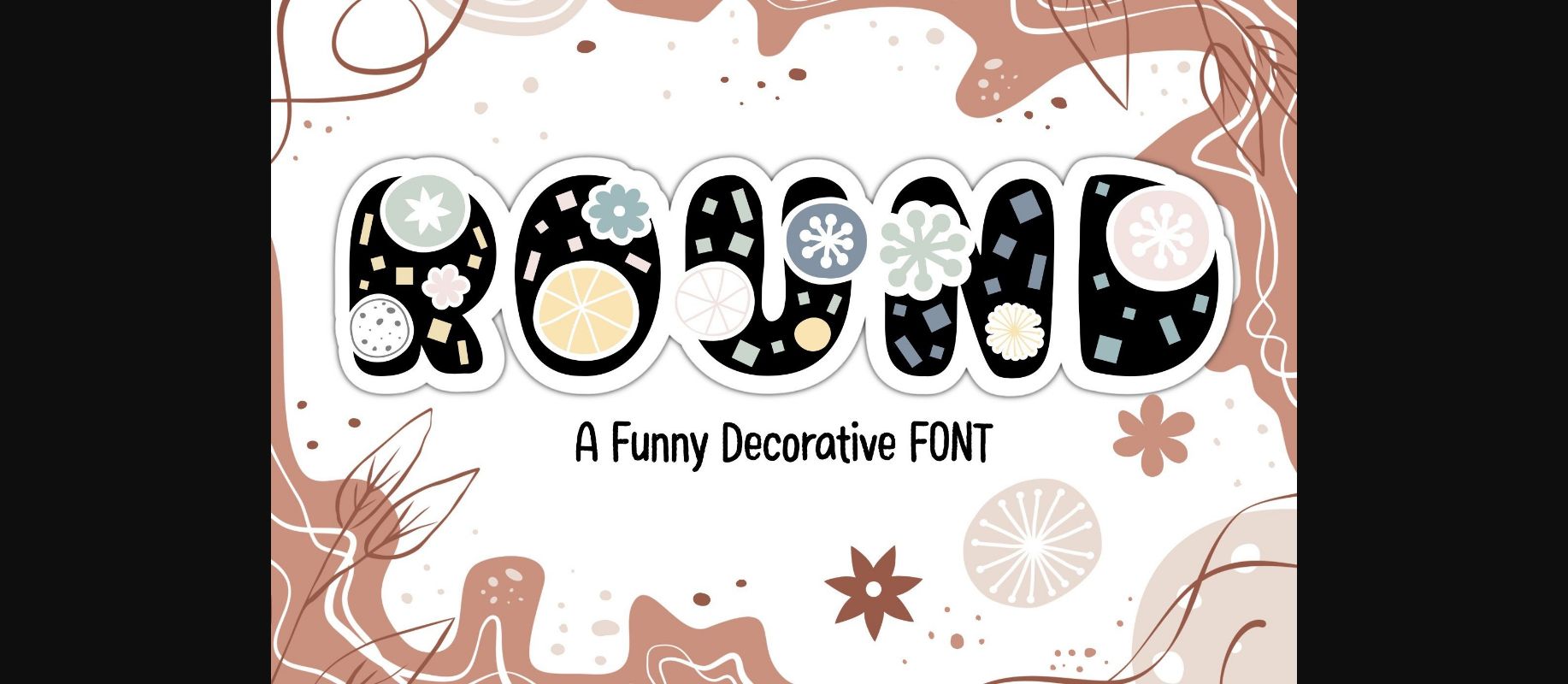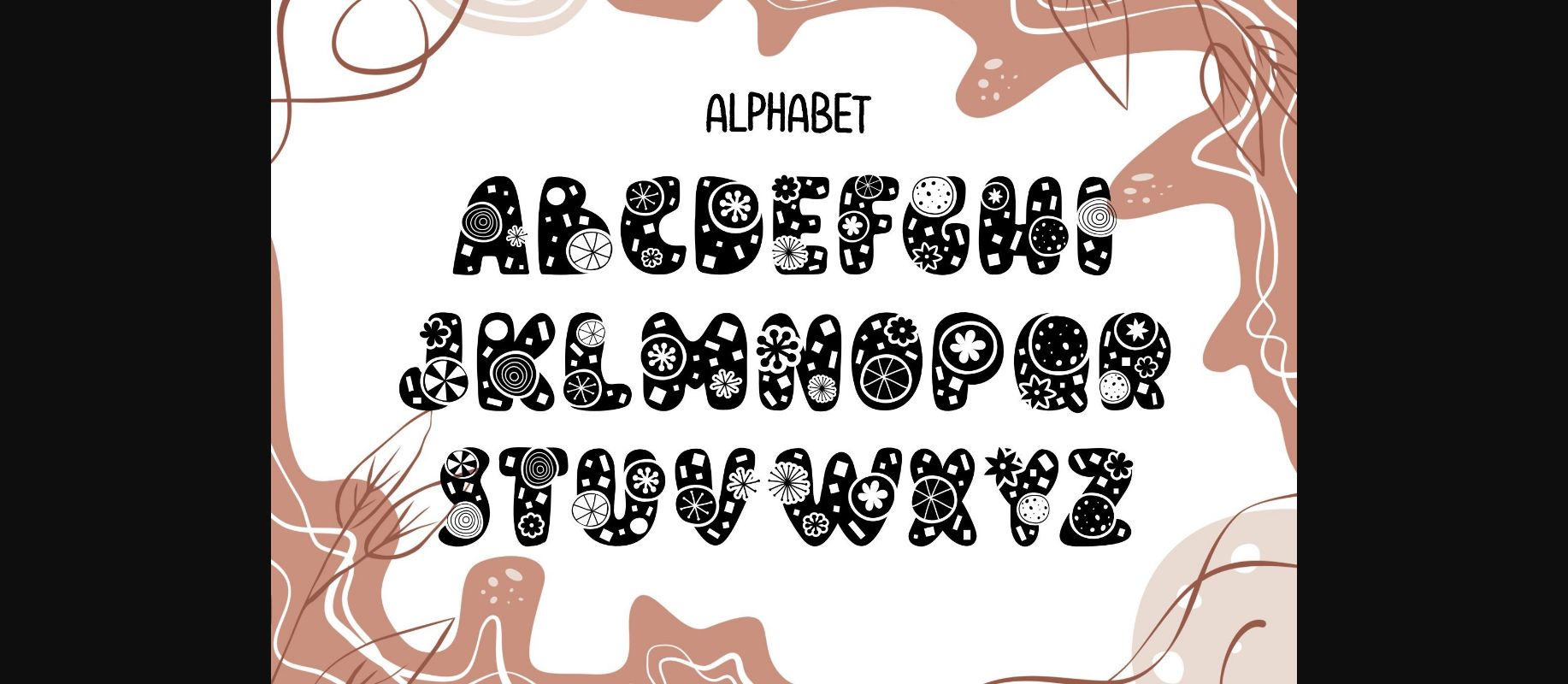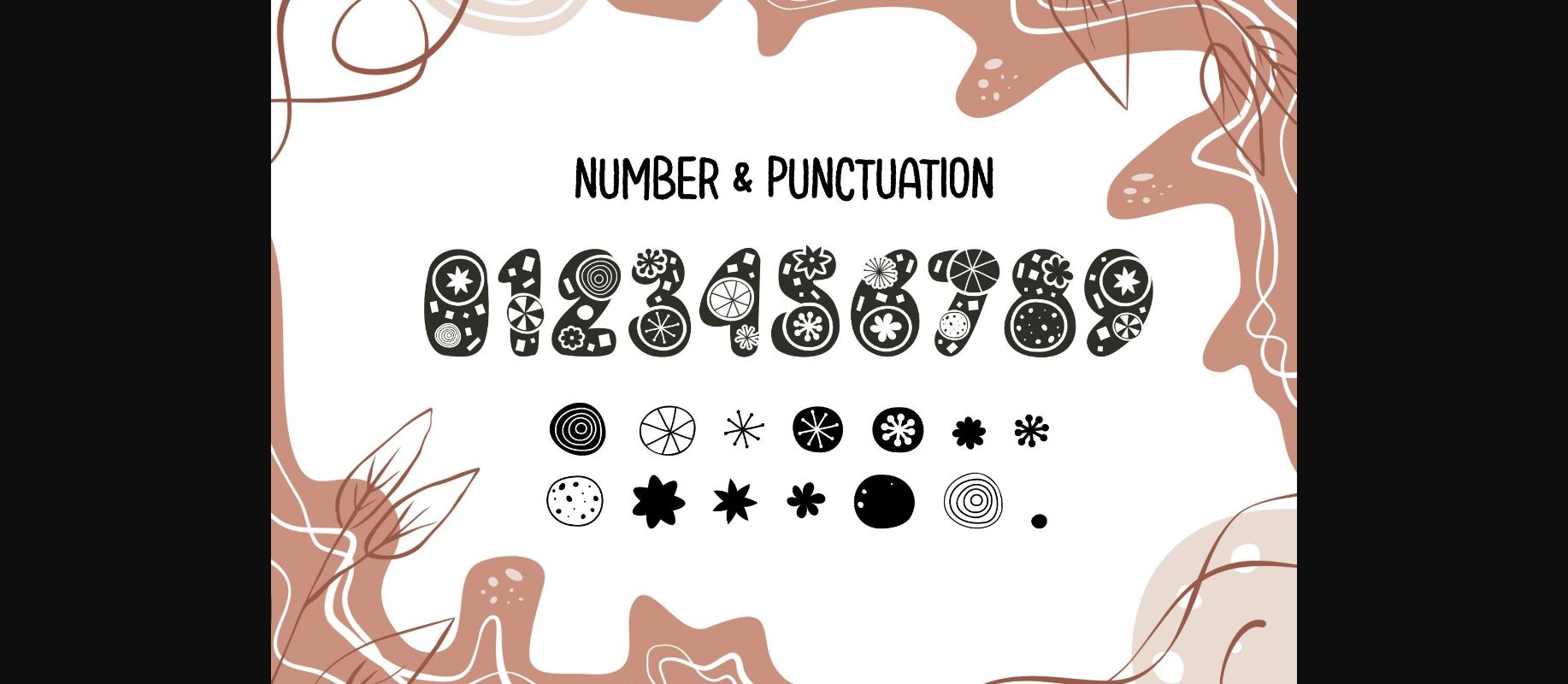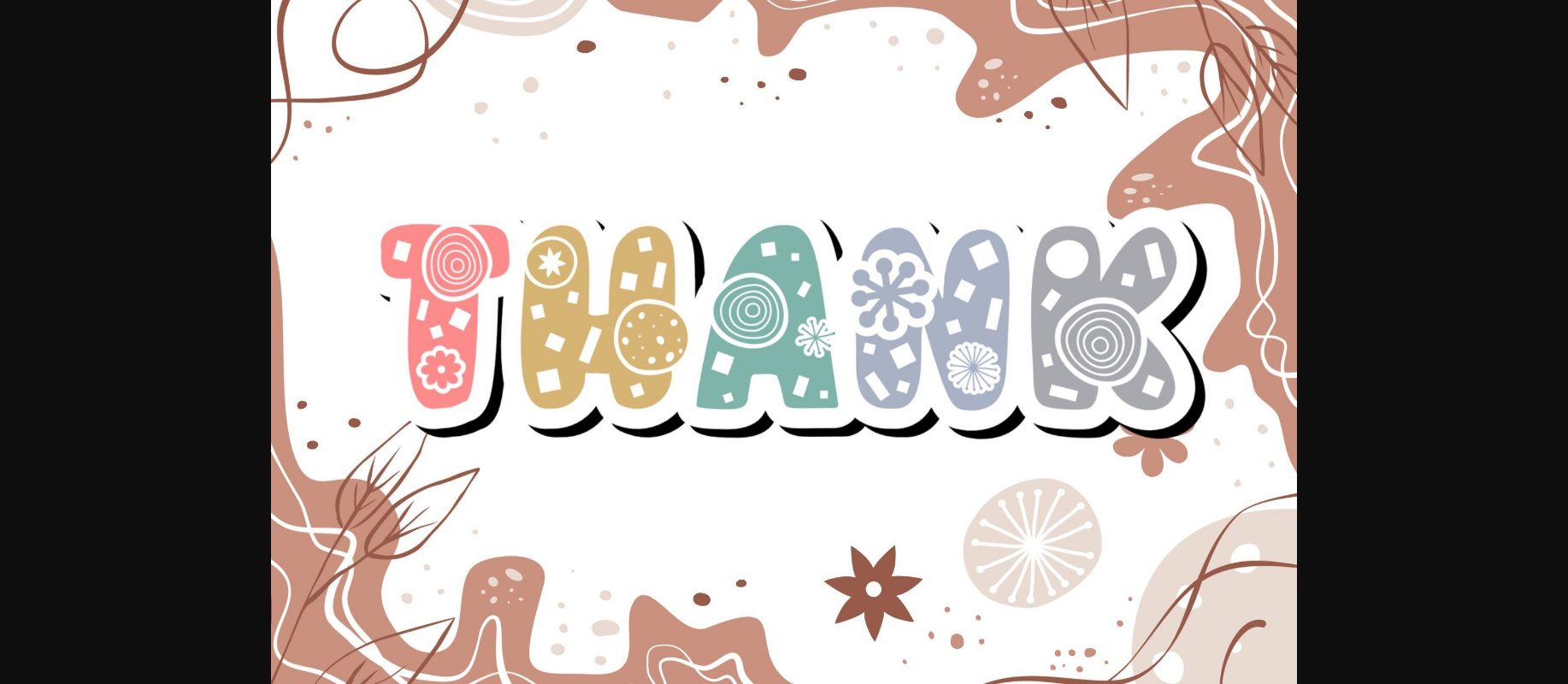
HomeDecorative FontsRound Font Decorative Fonts Round Font FacebookXPinterestWhatsApp 1 of 7 ... Round Font Poster 2... Round Font Poster 3... Round Font Poster 4... Round Font Poster 5... Round Font Poster 6... Round Font Poster 7... About Round Font Round is a fun decorative font that will fill your designs with cheerfulness! Use it on covers, posters, crafty DIY projects, and anything that needs to pop! DOWNLOAD NOW People also explored Aliquam Font Love Font Daddy Story Font Marthona Font Childlike Everyday Font Wintersnow Font La Fillea Font Linedoor Font Chesterfield Font 357 0 TagsRoundRound Font Previous articleScary FontNext articleMonster Halloween Font LEAVE A REPLY Cancel reply Comment: Please enter your comment! Name:* Please enter your name here Email:* You have entered an incorrect email address! Please enter your email address here Website: Save my name, email, and website in this browser for the next time I comment. Personal Use Free Einstaint Personal Use Free Read more about this font Elevate Your Halloween Designs with 500 Free High-Quality PNG Clipart Files Personal Use Free Read more about this font Bajt Rounded Personal Use Free Read more about this font White Rose Personal Use Free Read more about this font BLOG Free Fonts Risk: Why Free Fonts Can Be Dangerous for Designers Free Fonts Risk: Why Free Fonts Can Be Dangerous for Designers Using free fonts is a common practice in web and graphic design. However, the... Best Fonts for YouTube Videos: Make Your Thumbnails Stand Out Where to Buy American Fonts Online in 2024 Transform Your Website: Elevate Your Typography with 7 Best Web Font Generators